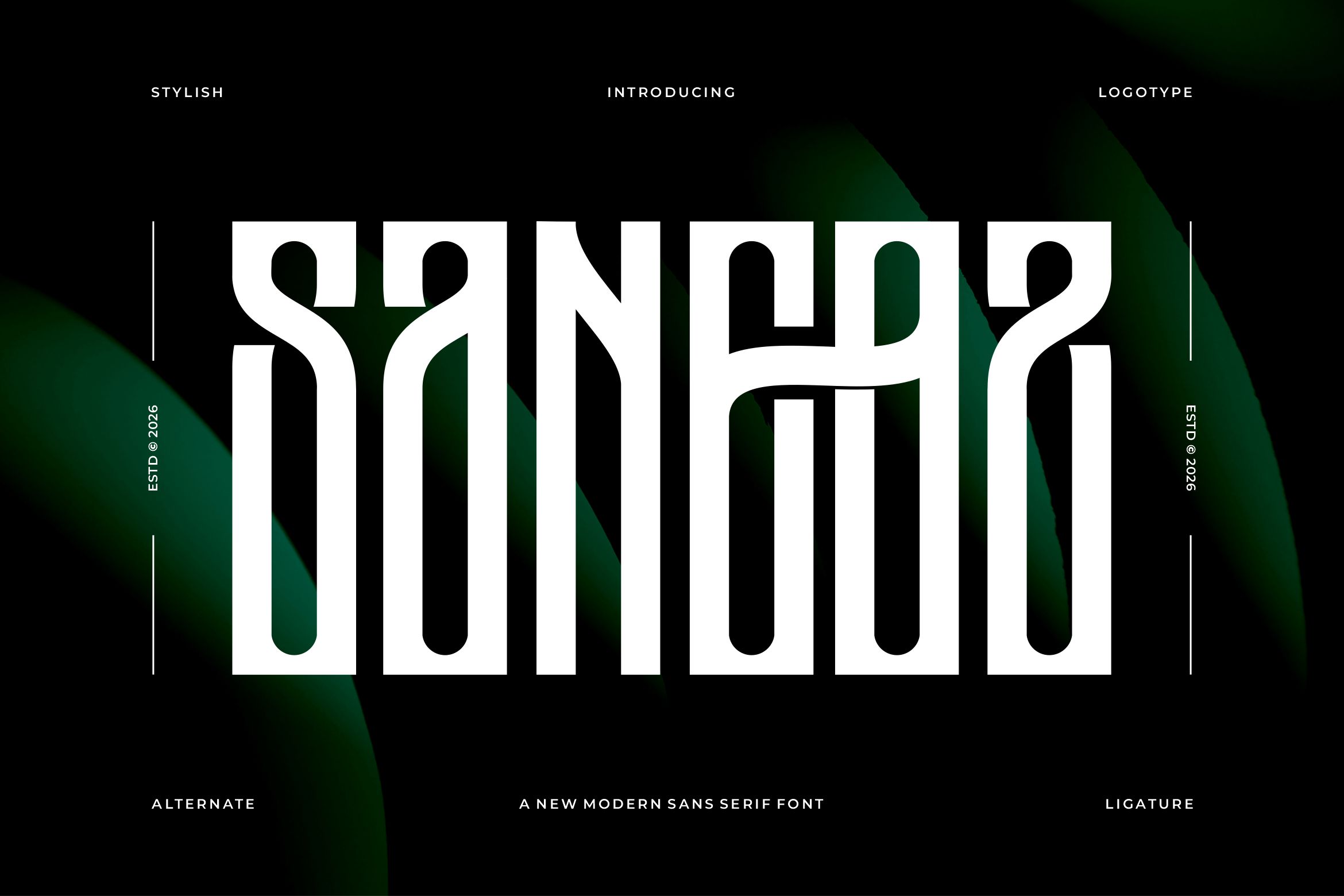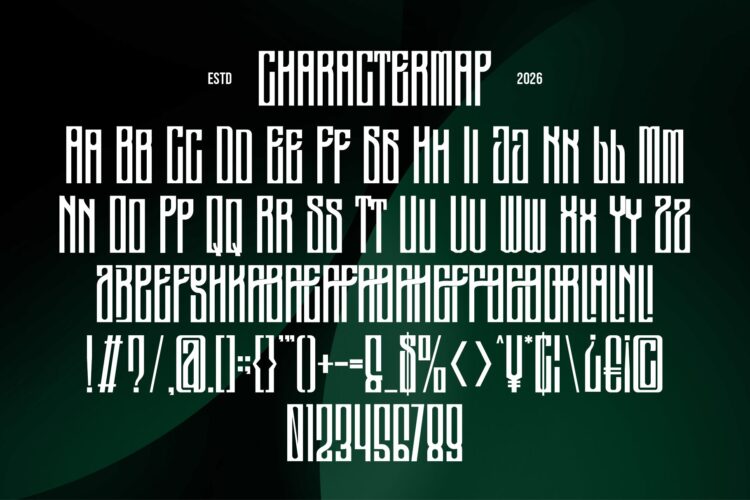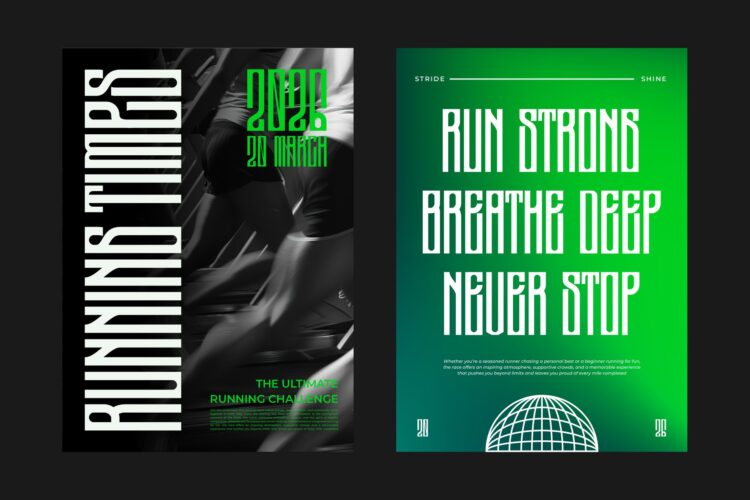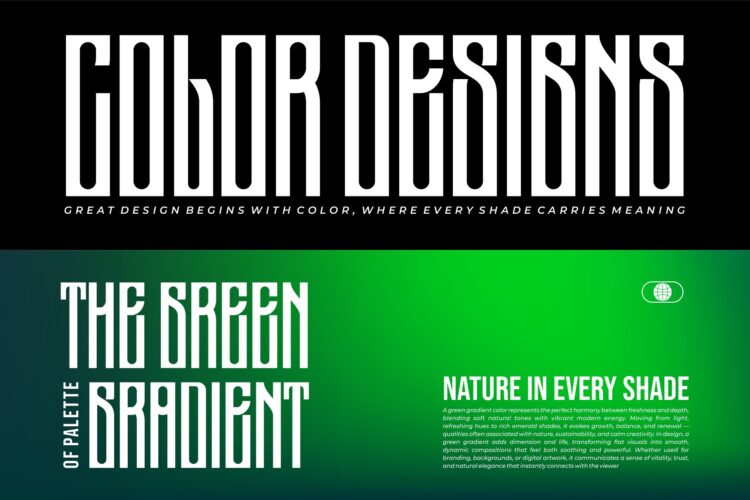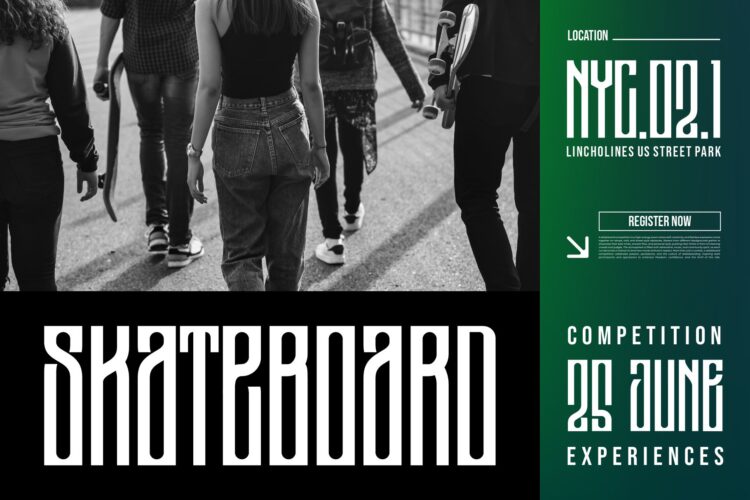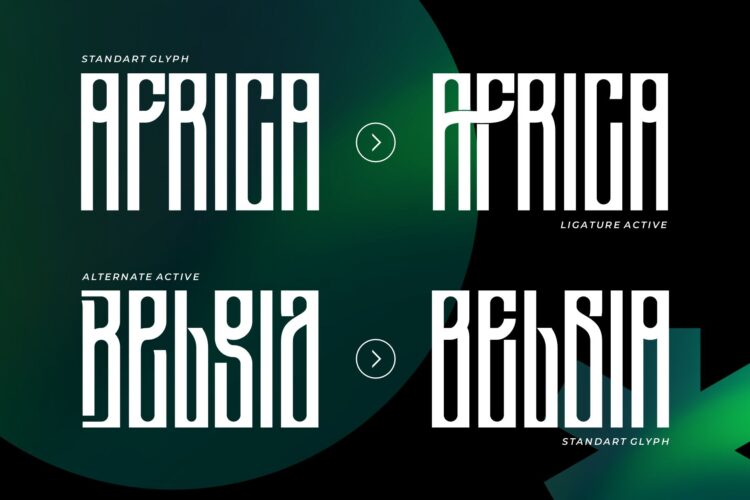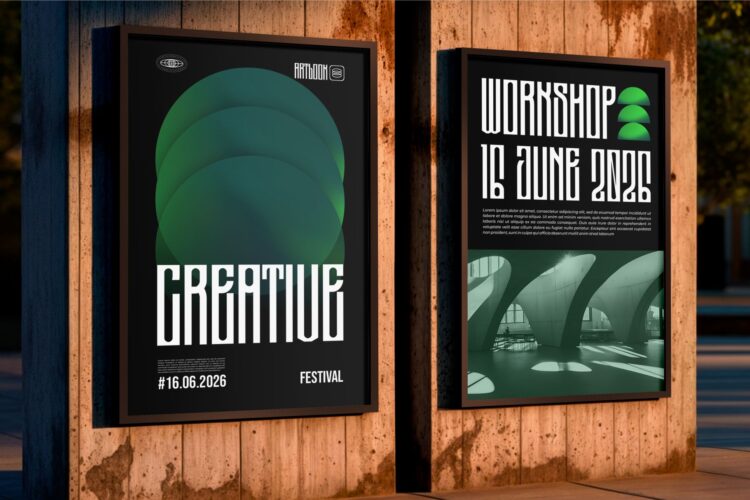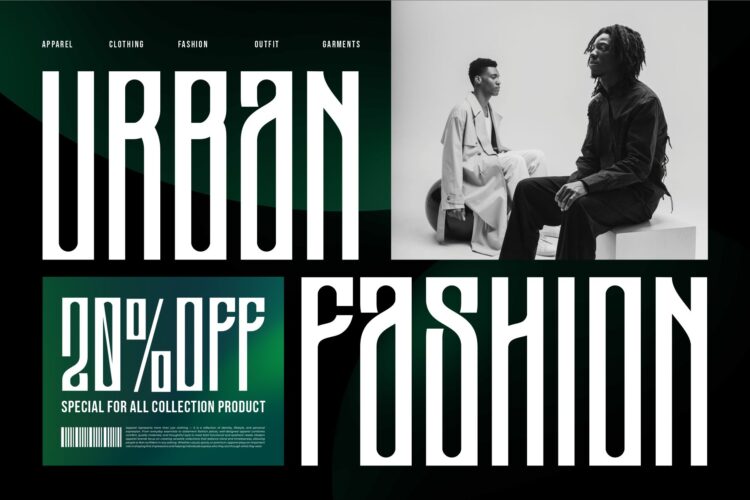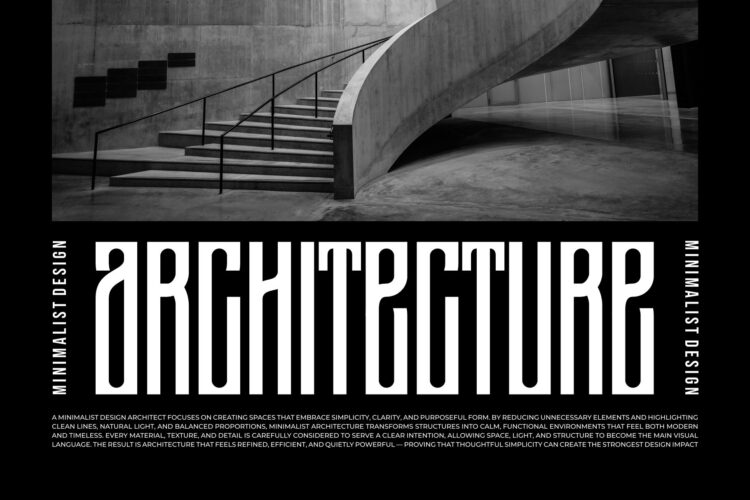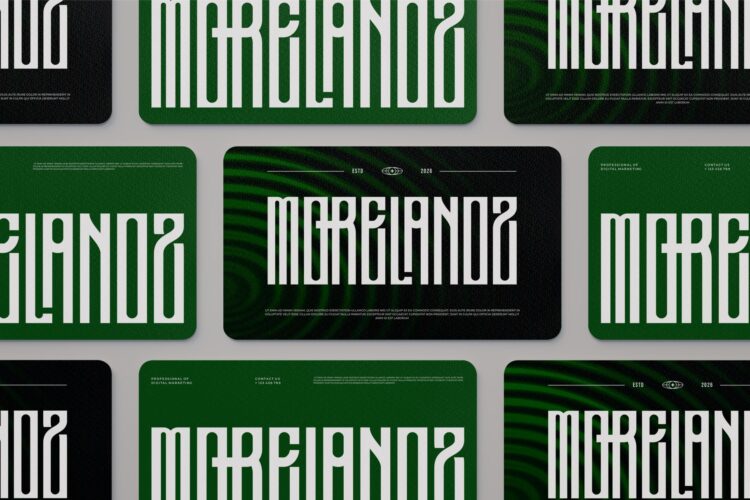
Saneoz
Introducing Saneoz is tall sans serif Font modern, trendy and stylish. It has a unique character. It is perfect to be combined with invitation card designs, company logos, movie titles, movie names, business cards, book titles, brand names and various other designs.
Saneoz || Modern Condensed Dosplay Font